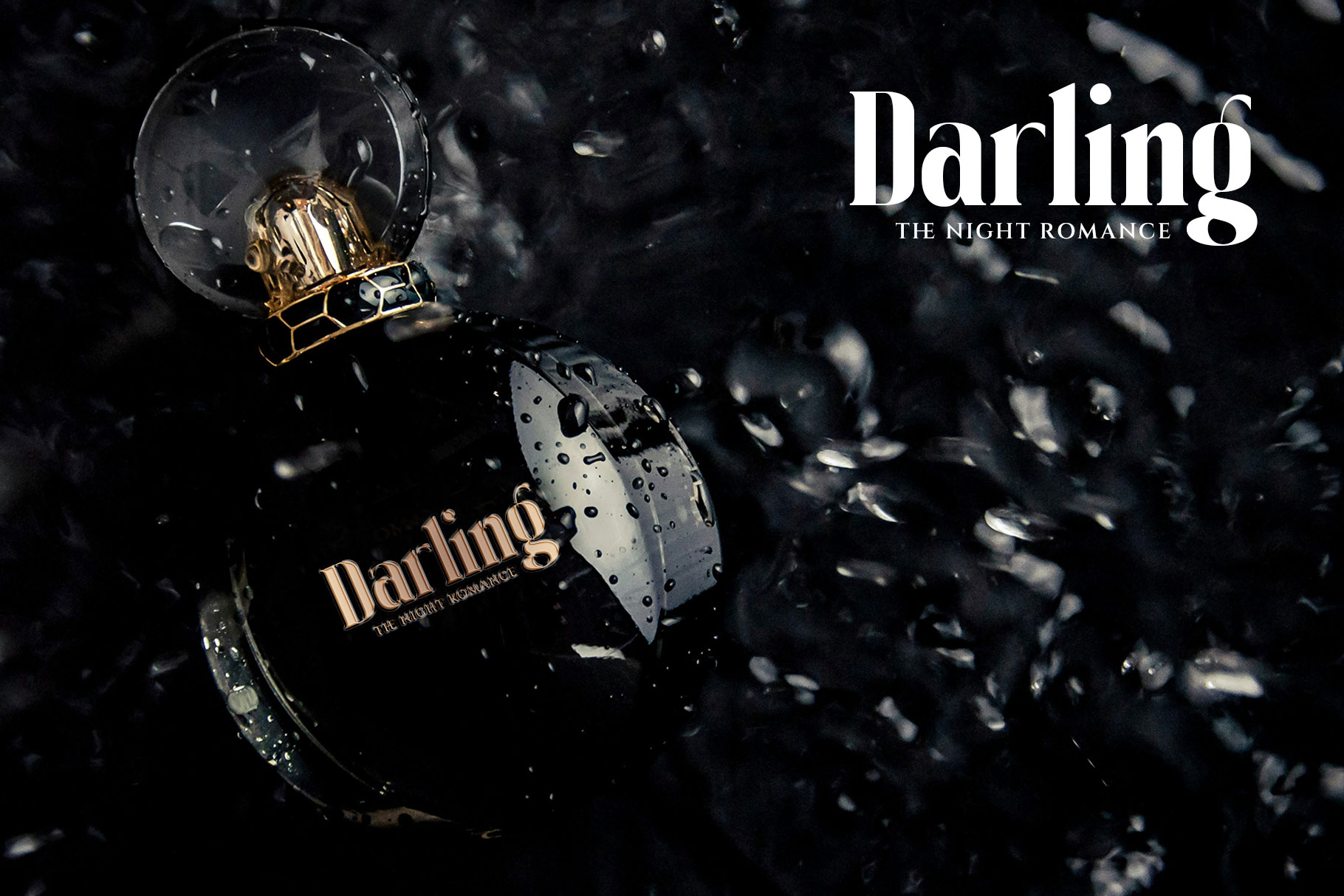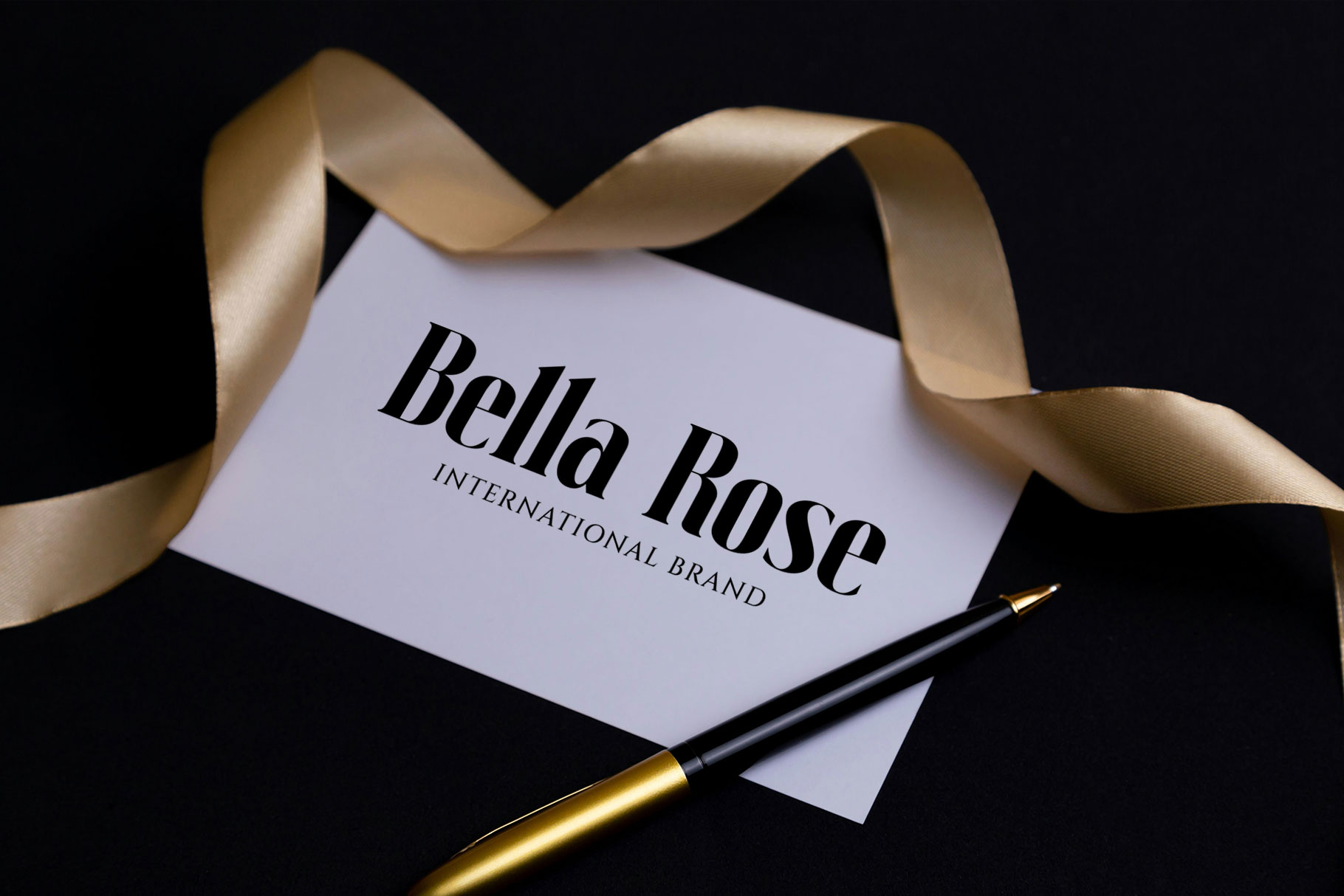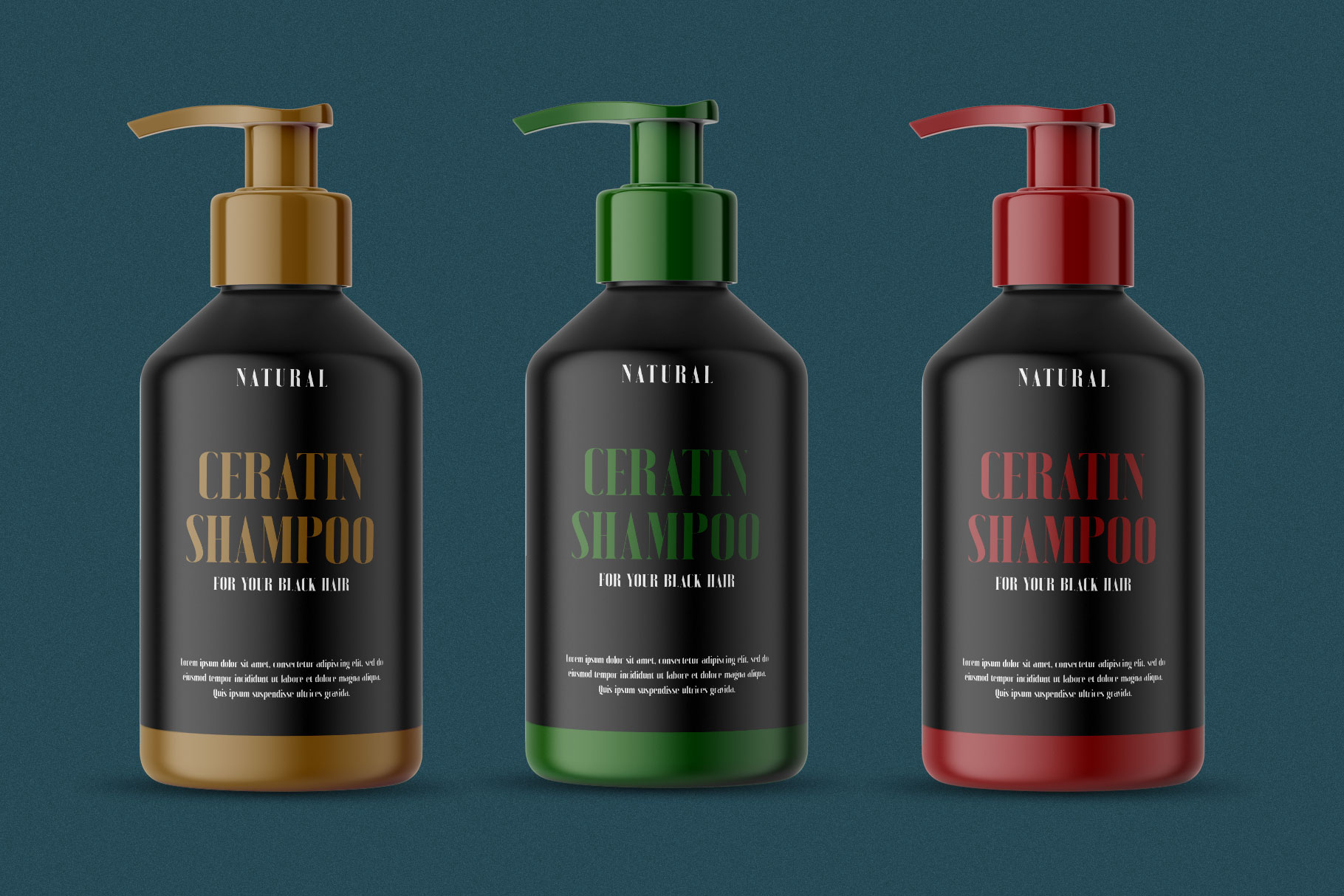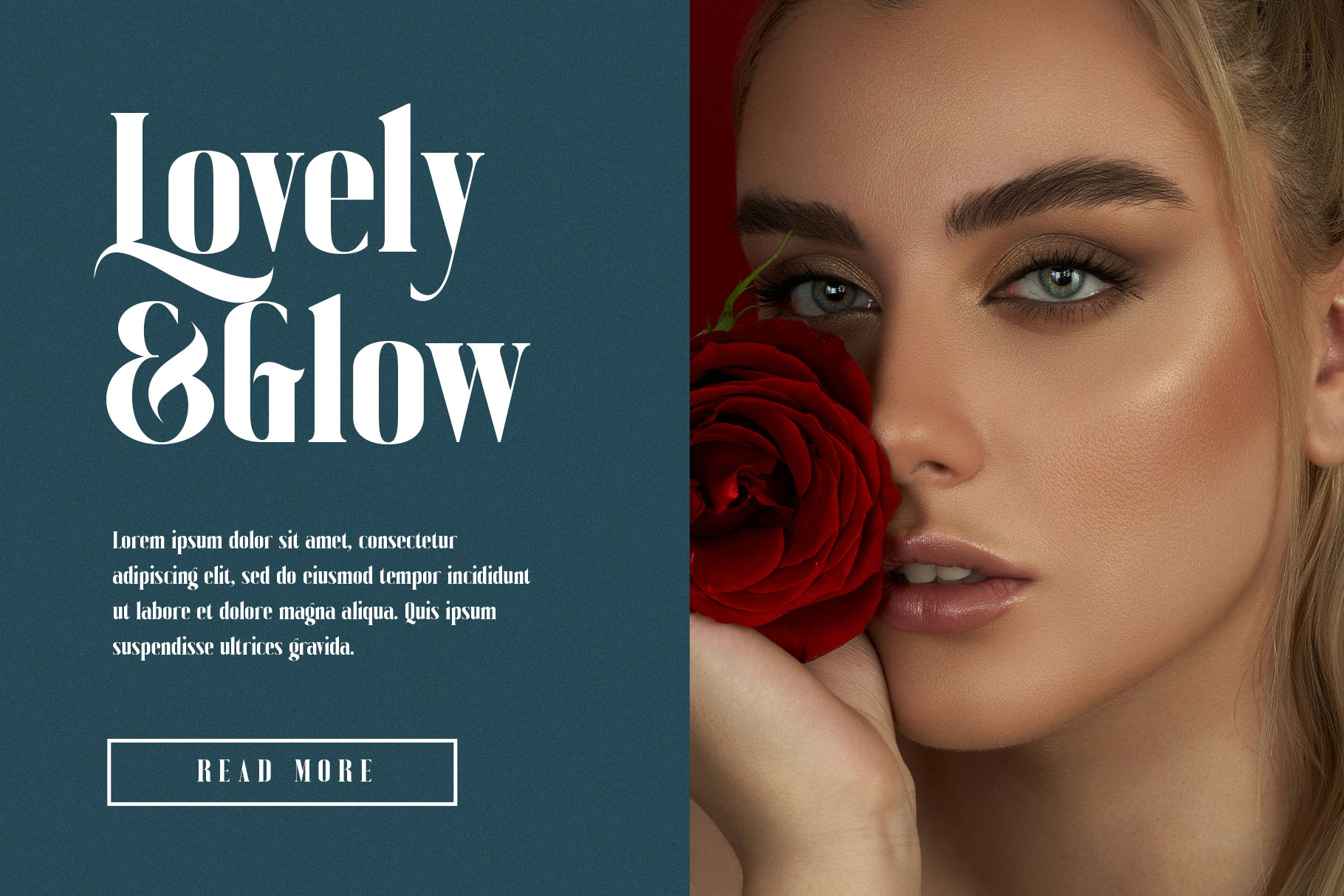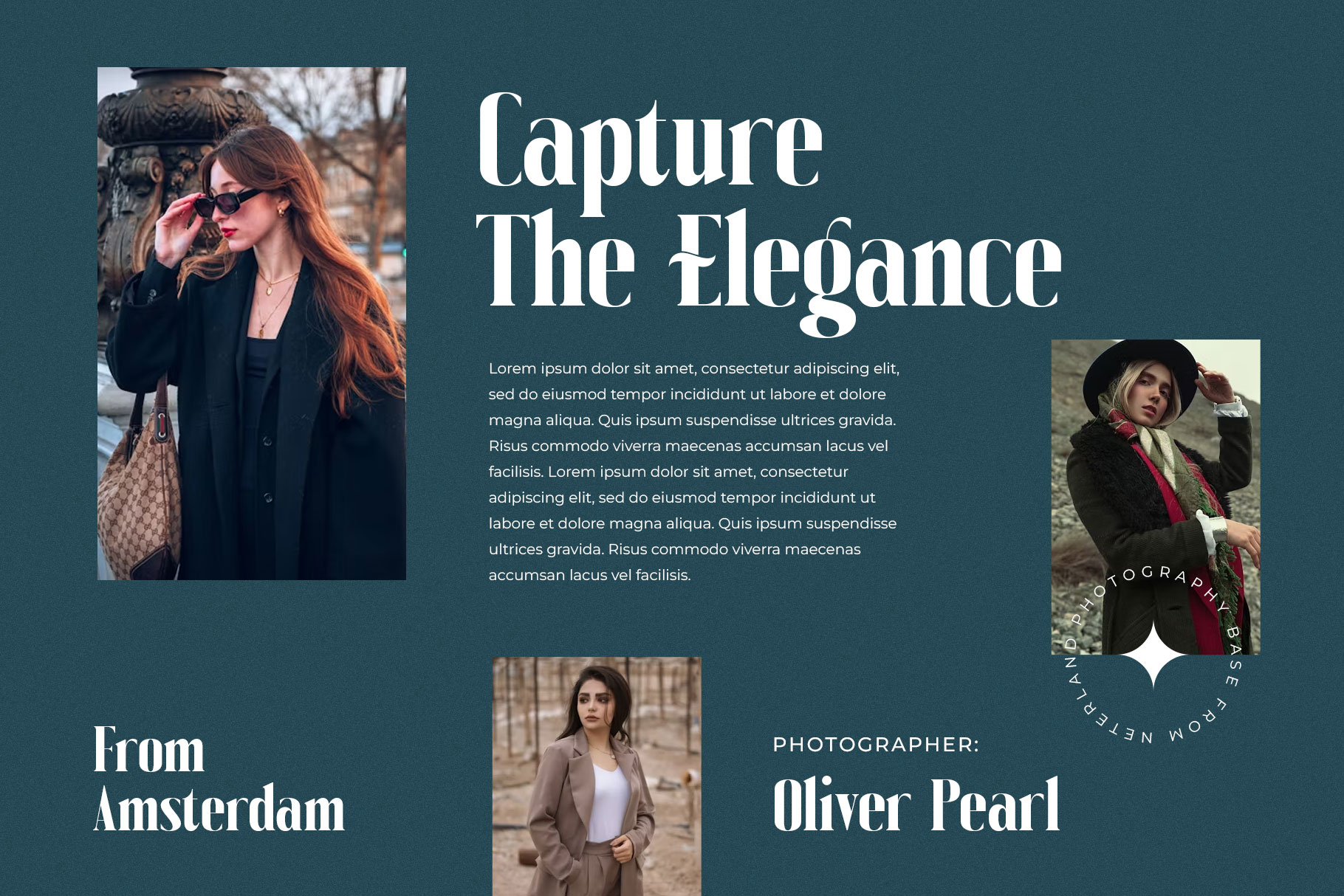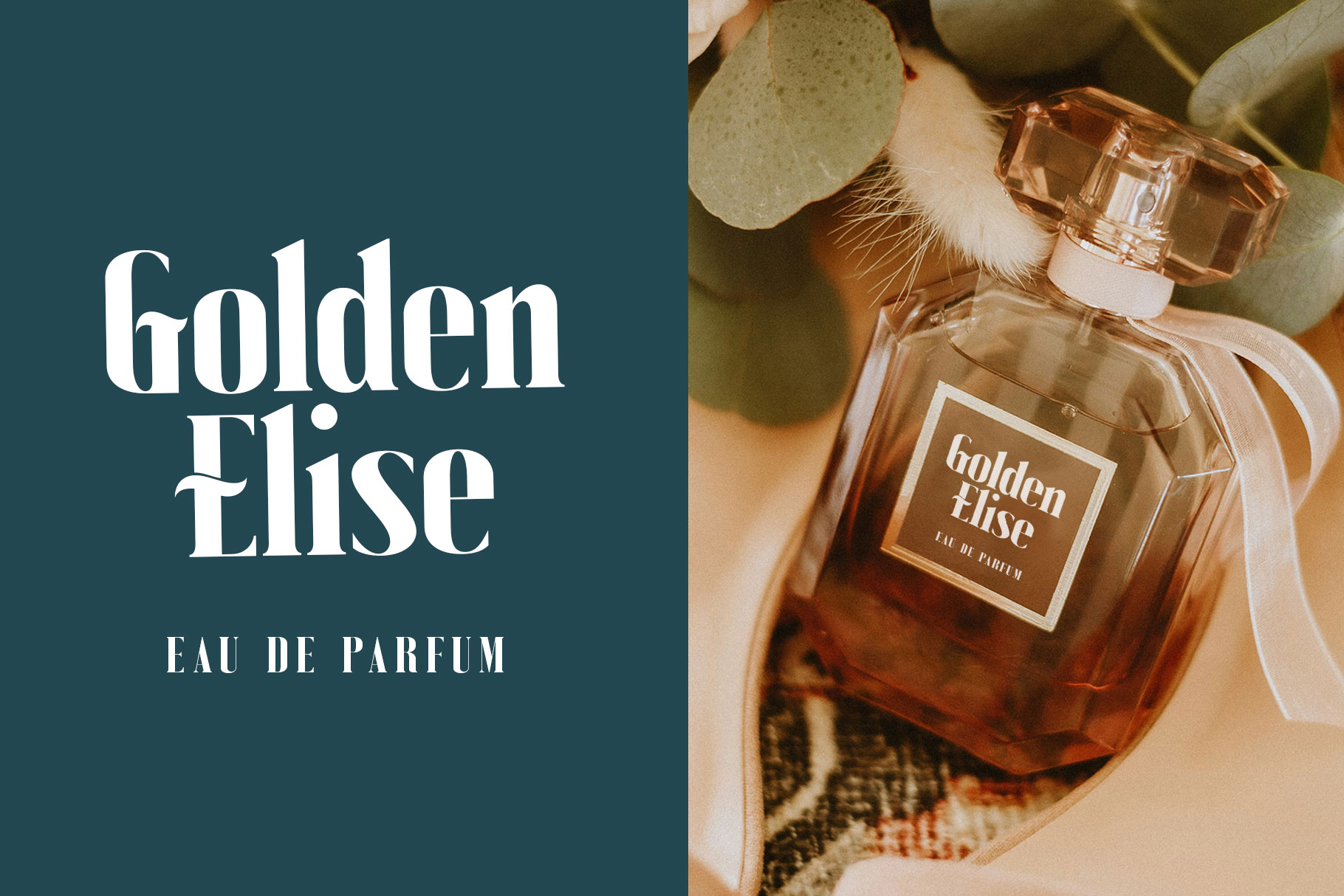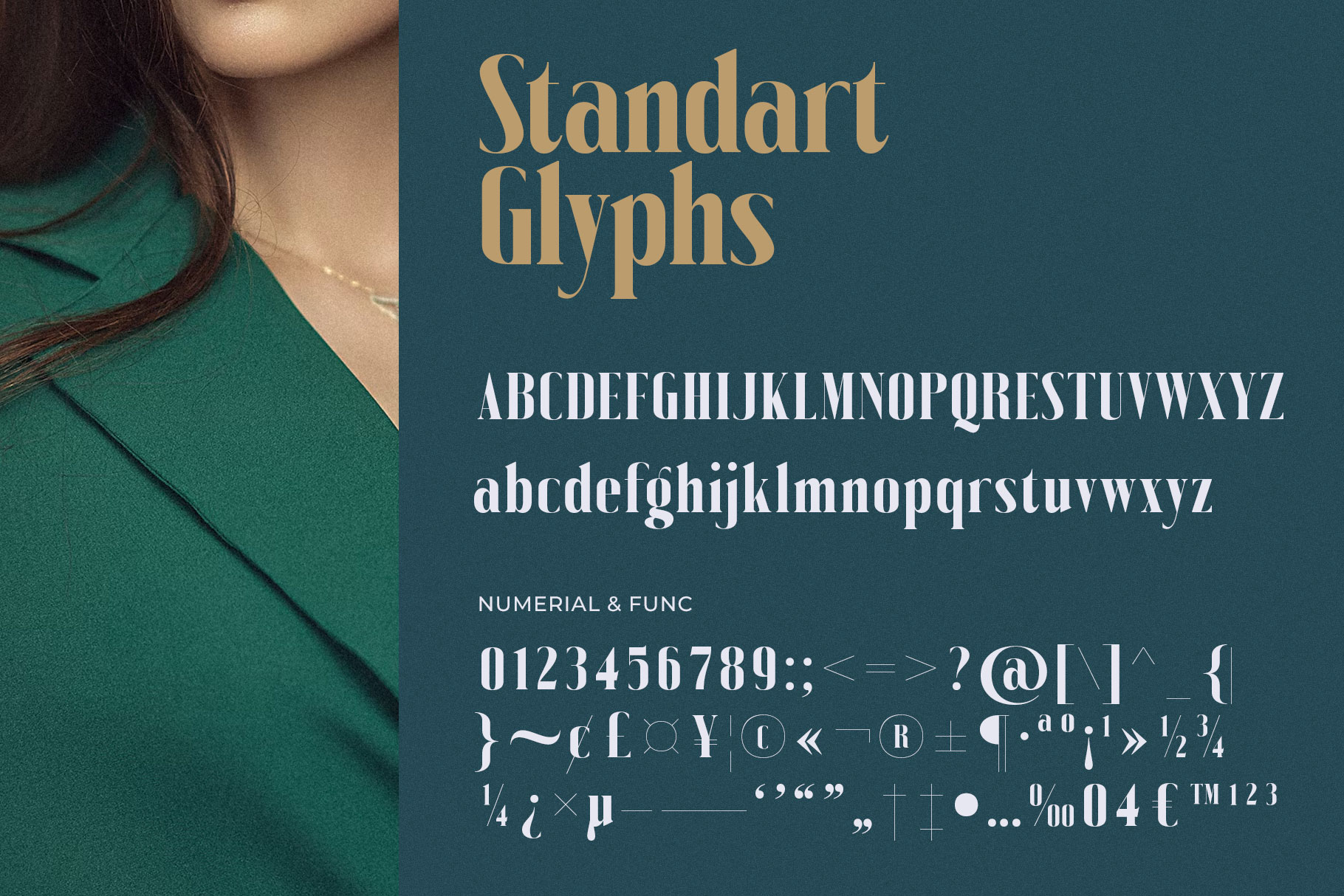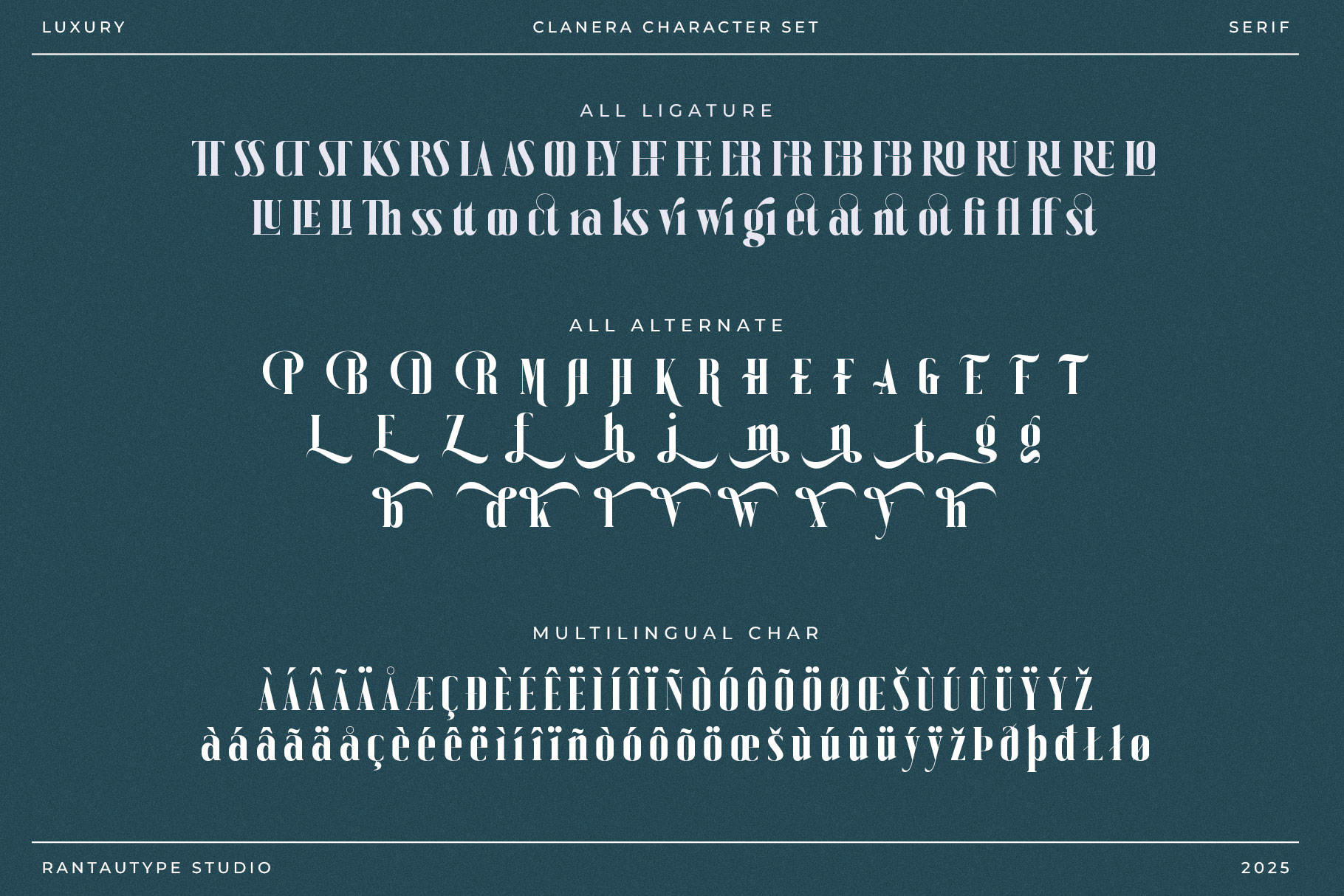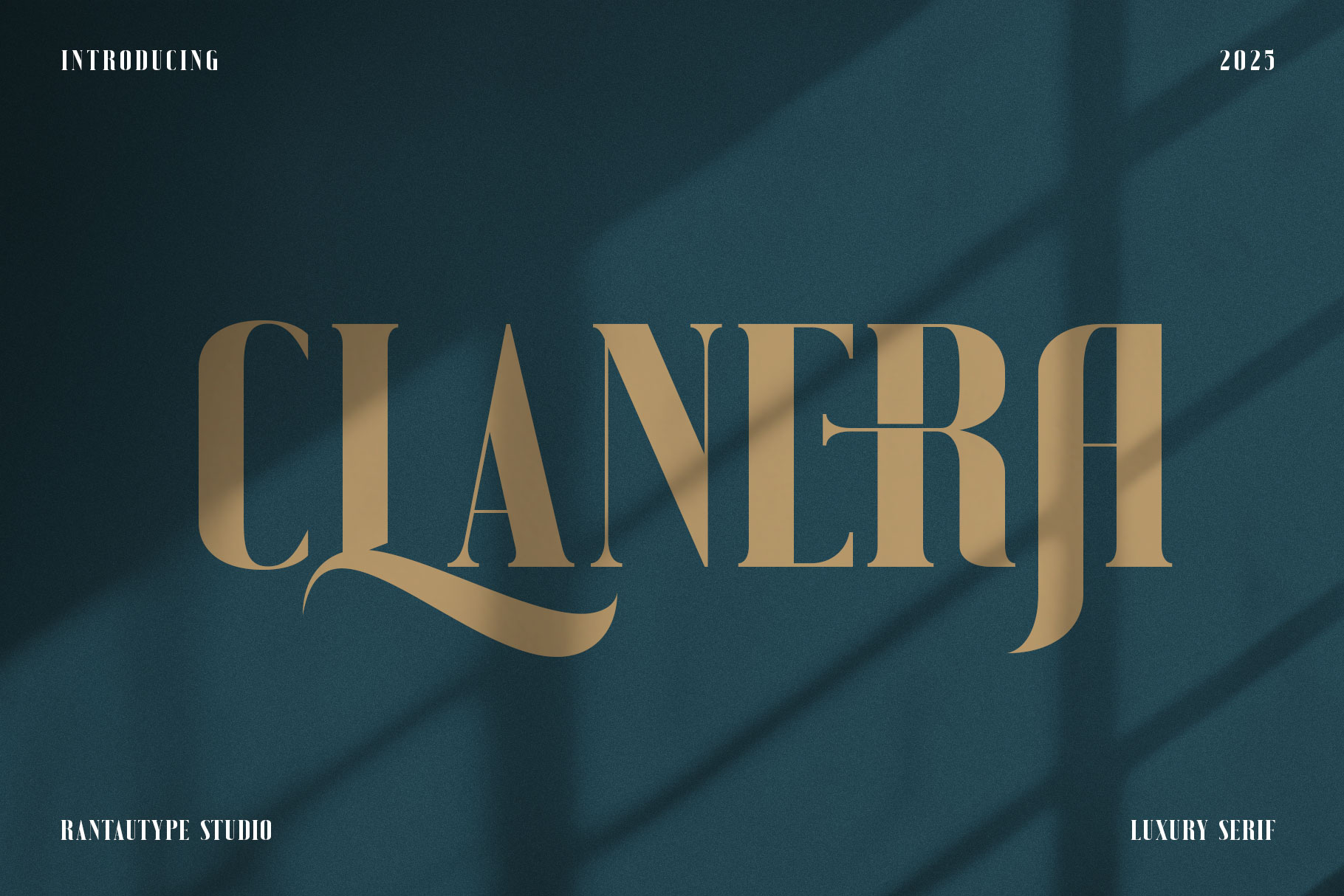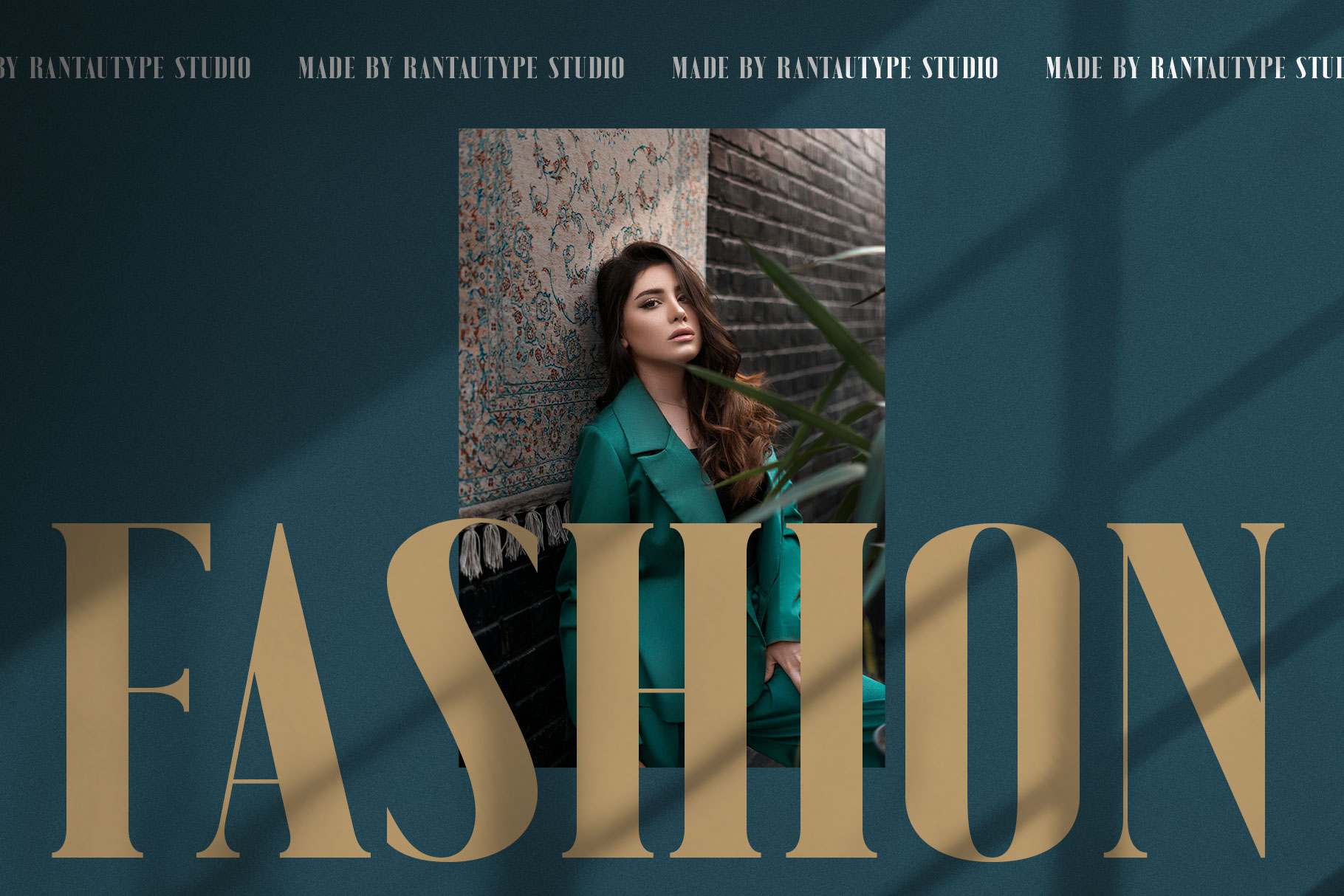
Clanera Luxury Serif Font
Clanera is bold minimalist and luxury serif font. Clanera come with beautiful ligature and alternate to make your design project stand out! Clanera is a perfectly choice for any creative endeavor, chic, lifestyle design such as logotype, advertisements, watermark on photography, stationery, branding project, display and magazine, invitation, corporate brand, product design, label, business project and many other project with elegant touch.